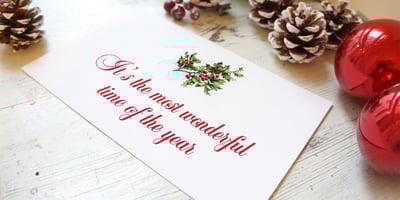
Balmoral Font Family was designed by Martin Wait and published by ITC. Balmoral contains 1 styles and family package options. Renowned British designer Martin Wait designed Balmoral in 1978. Balmoral is an elegant and free-flowing copperplate script style typeface. Generous initial capitals complement the more restrained lowercase letters that join for balanced letter spacing in word settings. Balmoral is excellent for use on certificates, citations, diplomas, and in greeting card applications.Featured in: Best Fonts for Tattoos